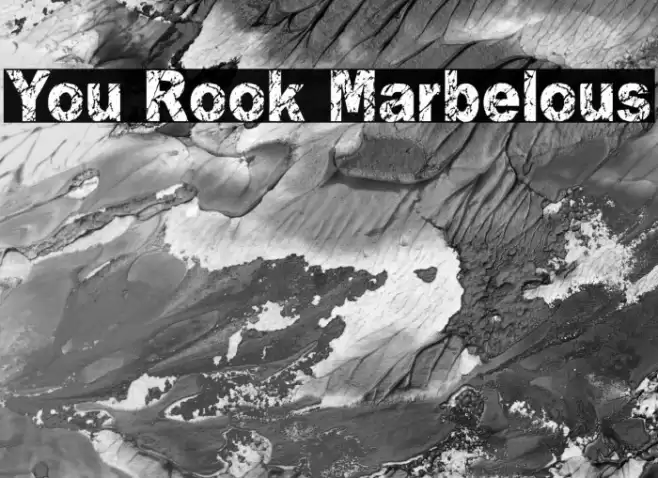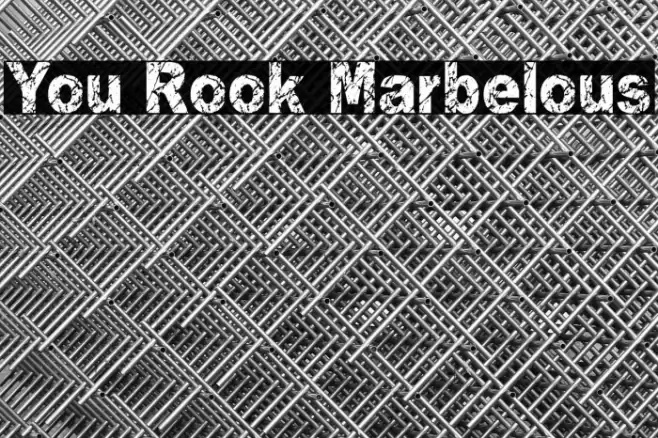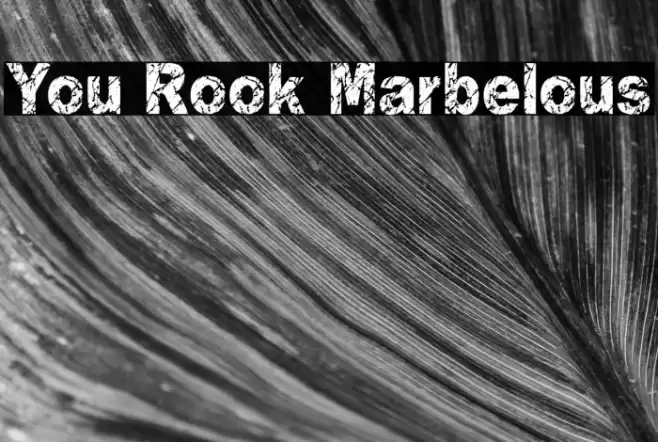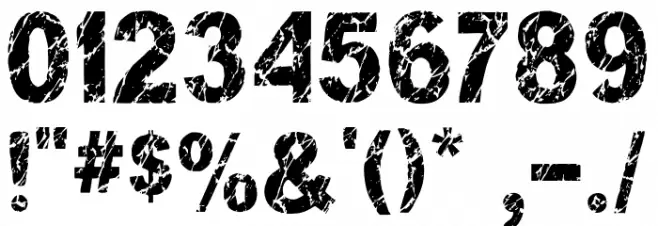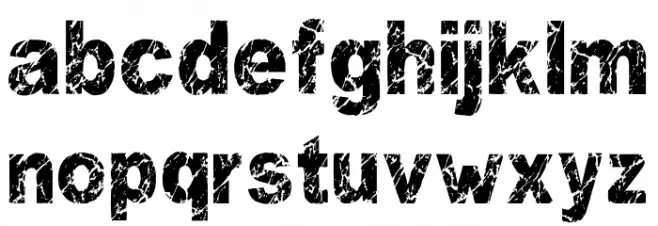
You Rook Marbelous Font
You Rook Marbelous Description
This font features a bold, distressed style with a textured, marbled effect that gives it a rugged and worn appearance. The uppercase and lowercase letters, as well as numbers and special characters, are all designed with a consistent rough texture that adds a unique, artistic flair. The font's bold weight and high contrast between the thick and thin strokes make it highly visible and impactful. Its decorative nature is perfect for projects that require a strong visual statement.
A bold, distressed font with a marbled texture for a rugged look from Uncategorized fonts.
- Font: You Rook Marbelous
- Proposed Projects: Ideal for posters, album covers, branding, and any design needing a bold, artistic touch.
- Contrast: High